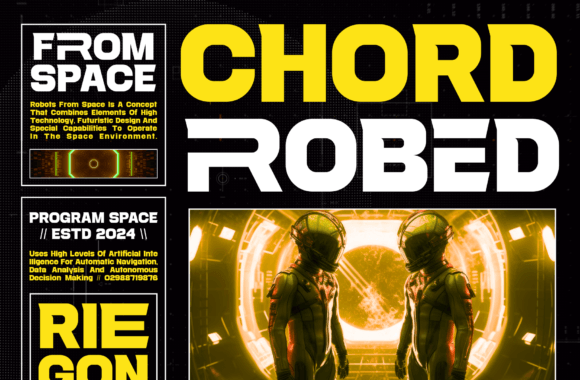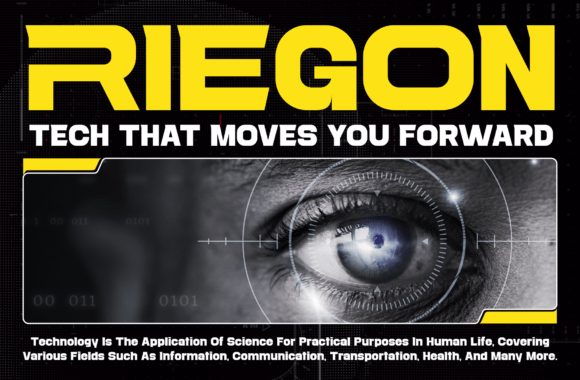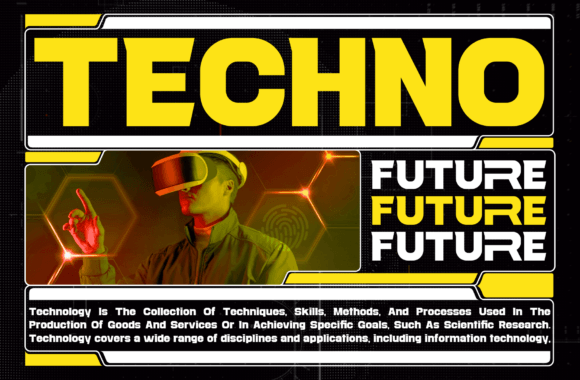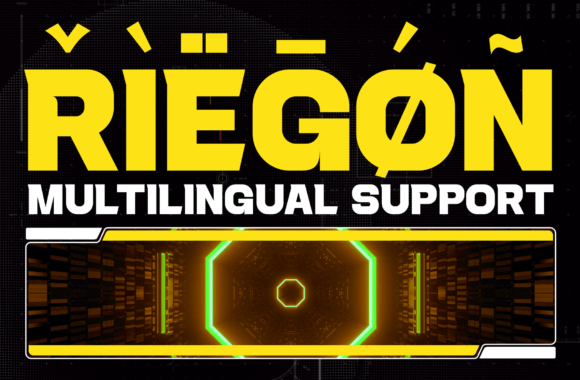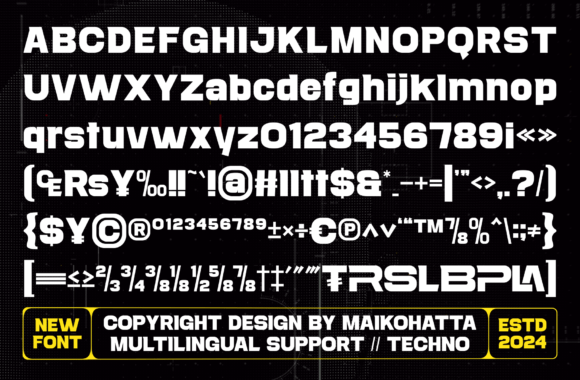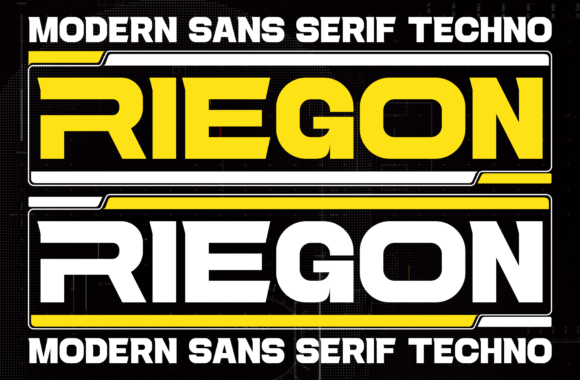
Introduction to Riegon Font
Remember the moment when you finally nailed the perfect design for your project? The feeling of satisfaction and accomplishment is like no other. It’s a mix of excitement, relief, and a dash of creativity. For designers, this moment is what drives us to push the boundaries of innovation and style. And that’s exactly where the Riegon Font comes in – a modern sans-serif font that adds a touch of futurism to any design.
With its sleek, clean lines and techno feel, the Riegon Font is a valuable addition to any design resource. Whether you’re working on a high-profile project or a personal creative endeavor, this font is sure to elevate your design to the next level. And the best part? It’s available for free download, so you can get started right away.
Key Features of Riegon Font
- High-quality design resource for creative projects: Riegon Font offers a unique and stylish font that can elevate any design.
- Transparent background: Riegon Font features a transparent background, making it easy to use with any image or design element.
- High-resolution design: Riegon Font is designed at 300 DPI for high-resolution printing and digital use.
- Perfect for creative projects: This font is ideal for designers, artists, and writers who need a unique and stylish font for their projects.
- Easy to customize: Riegon Font is highly customizable, allowing users to adjust the font size, color, and style to suit their design needs.
Honest Review: Riegon Font
I recently had the chance to try out the Riegon Font, and I must say it’s a great addition to any design resource library. As a designer, I’m always on the lookout for high-quality fonts that can elevate my creative projects.
The Riegon Font is a stunning piece of work that features a clean and modern design. ✨ One of the standout features of this font is its transparent background, which makes it perfect for overlaying on top of images or other design elements.
Here are some of the things I like about the Riegon Font:
- High-quality design that looks great on both desktop and mobile devices
- Transparent background makes it easy to use in a variety of creative projects
- No bold or italic versions available
- Not as extensive a character set as some other fonts
Overall, I’m really impressed with the Riegon Font, and I think it’s a great addition to any design library. While it may have a few limitations, it’s a high-quality font that’s perfect for smaller creative projects or personal use.
The Riegon Font is a high-quality design resource that can elevate your creative project to the next level. With its unique style and transparent background, it’s perfect for designers looking for a versatile font.
Tips for Getting the Most Out of Riegon Font
To get the most out of the Riegon Font, experiment with different font sizes, colors, and styles. You can also combine it with other design elements to create a unique look.
The Riegon Font is perfect for a variety of design projects, including: